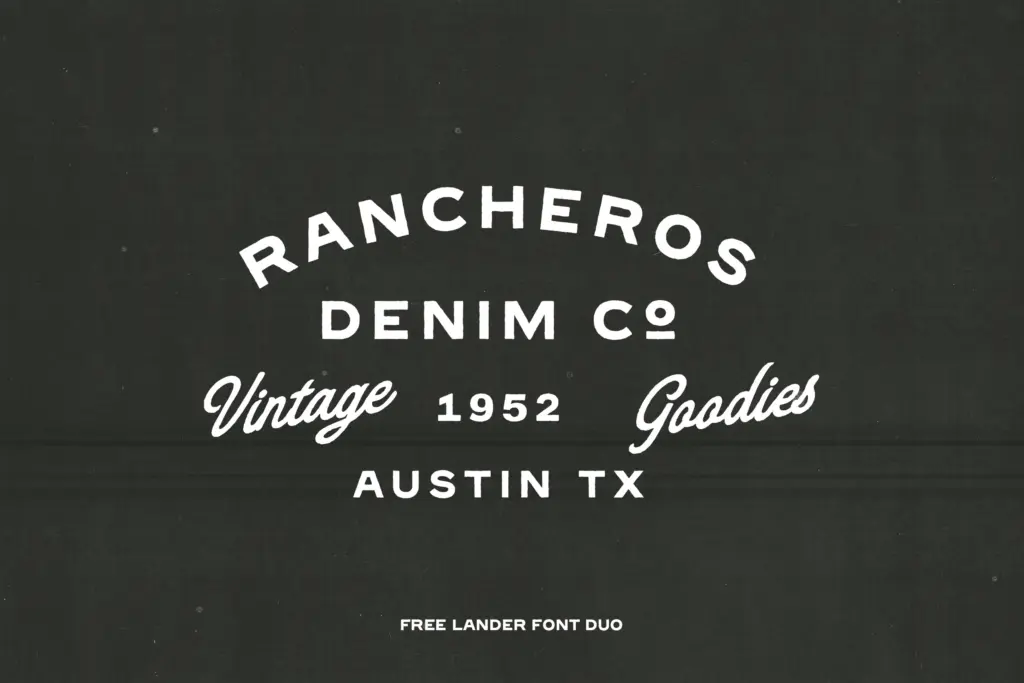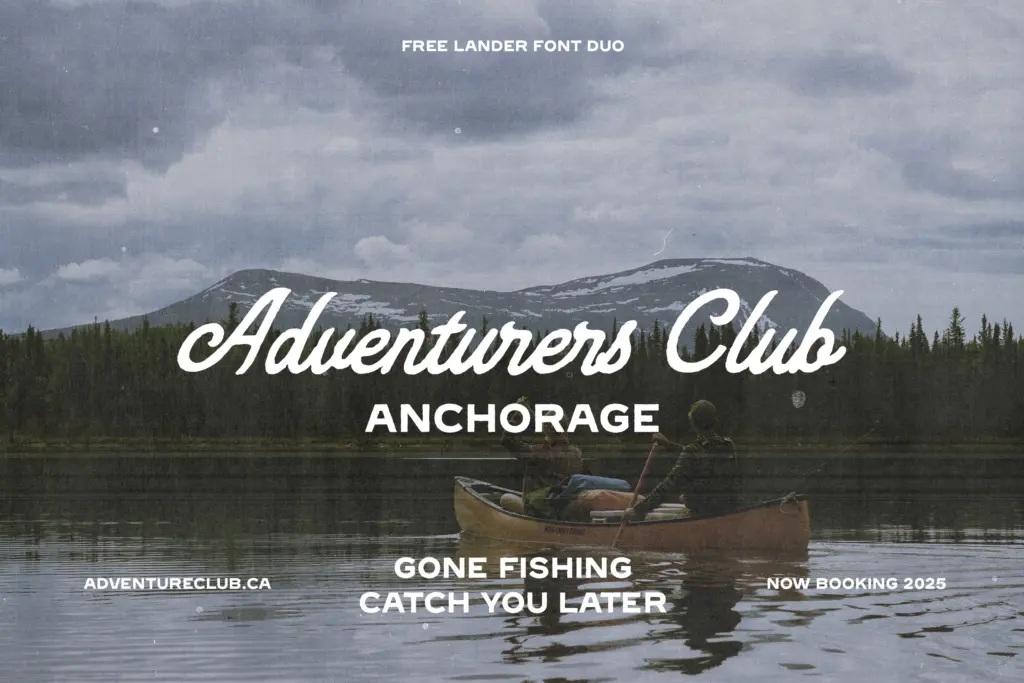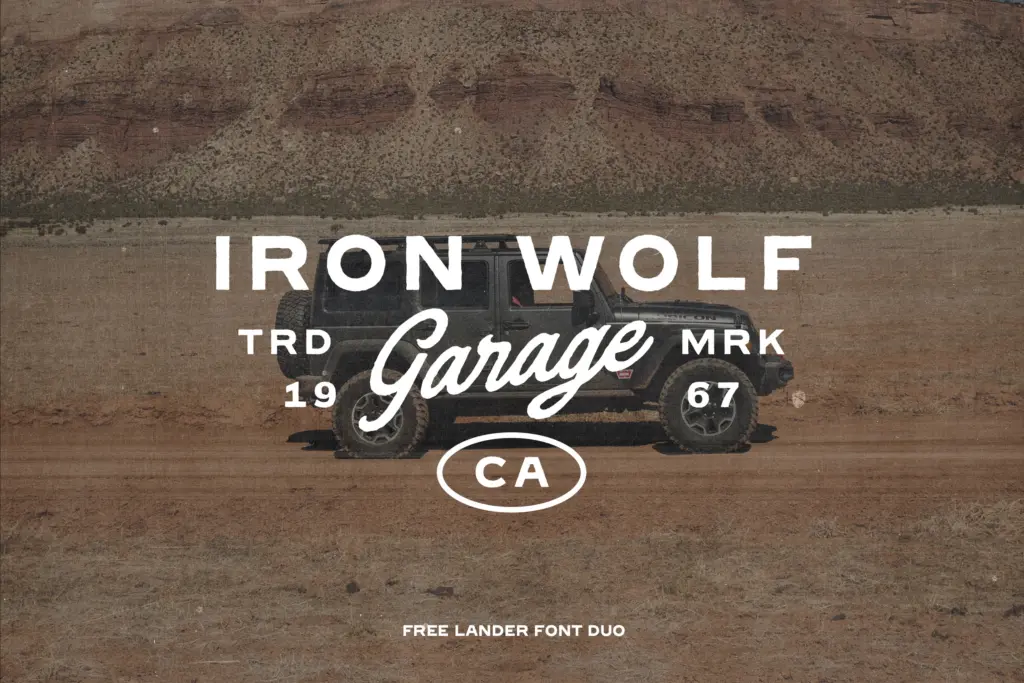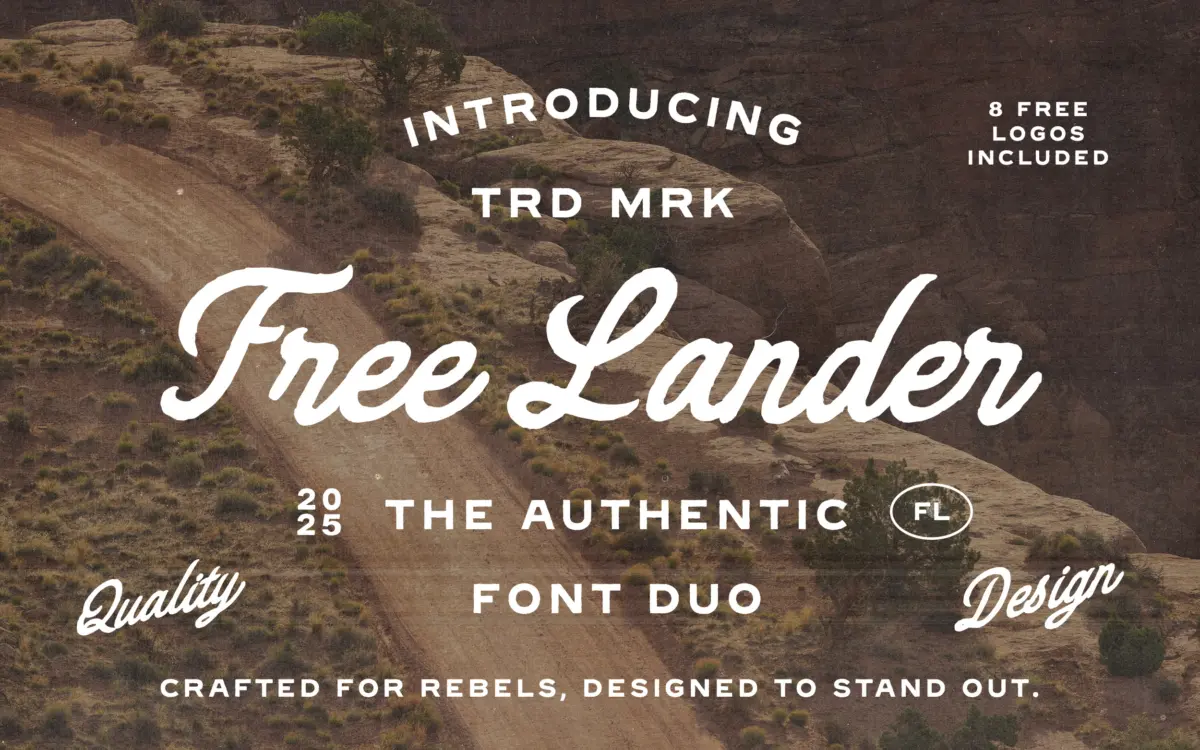
Free Lander pairs two typefaces built around the same worn, handmade sensibility. The script half is loose and brushy, with strokes that thicken and thin unevenly, as if drawn with a dry marker rather than a pen. It leans casual and a little rough at the edges, which is clearly the point: this isn’t a wedding-invitation script, it’s one aimed at labels and badges that want to look lived-in. The companion sans is blocky and slightly irregular, with letterforms that don’t sit perfectly on the baseline and edges that aren’t quite clean. Together they read as a set built for a specific mood — outdoorsy, vintage, a bit rebellious — rather than a neutral pairing meant to disappear into a layout.
The rustic quality is deliberate but it does mean neither face is trying to be refined. If you’re after crisp geometry or high polish, look elsewhere. Free Lander’s appeal is in its imperfection, and that imperfection is consistent across both fonts, so the pairing does feel like it came from the same hand.
Both fonts include uppercase, lowercase, numerals, and punctuation, with multilingual support extending their use beyond English-language projects. The script carries the more expressive lettering, with connecting strokes and irregular baseline placement that give it movement; the sans is the steadier partner, built for short runs of text that need to sit underneath or beside the script without competing with it. Neither face is suited to long paragraphs — the script because handmade scripts rarely hold up at text sizes, the sans because its texture and roughness get busy when set small or dense.
Where this duo does its job is in short combinations: a script wordmark over a sans tagline, a badge with a curved script banner and blocky sans initials, a label with a hand-lettered product name and a sans address line. That’s the working relationship the two fonts were drawn for, and it comes through clearly in how the weights and rhythms complement rather than clash.
This is a font duo for branding work that wants texture — craft goods, outdoor and adventure brands, apparel graphics, packaging for small-batch or artisanal products, badge and patch design. The rebellious, vintage-adjacent character suits anything trying to avoid a slick, corporate look. Logo design is the obvious home for the script in particular, especially where a single word or short phrase needs personality rather than legibility at small sizes.
It’s less useful for anything requiring restraint or neutrality — corporate identity, editorial text, interface work, or contexts where the handmade roughness would read as noise rather than character. And because both fonts lean hard into a specific aesthetic, this isn’t a duo you reach for repeatedly across different brand voices; it does one thing, and it does it in a fairly narrow lane. Designers working on rustic, outdoors, or apparel-adjacent branding will get real use from it. Others will find the mood too specific to stretch.
- Script and sans share a consistent rustic texture, so the pairing feels genuinely designed together
- Multilingual support widens its use beyond basic English branding
- Well suited to short-form badge, label, and logo work where character matters more than neutrality
- The handmade roughness limits both fonts to short text and large sizes, not paragraphs
- The aesthetic is narrow enough that it won't suit brands outside the rustic or adventure niche
Free Lander is a competent, focused duo for rustic and outdoorsy branding work, with a script and sans that visibly come from the same hand. It's not built for versatility or fine text setting, so its usefulness depends entirely on whether your project wants that worn, handmade look.